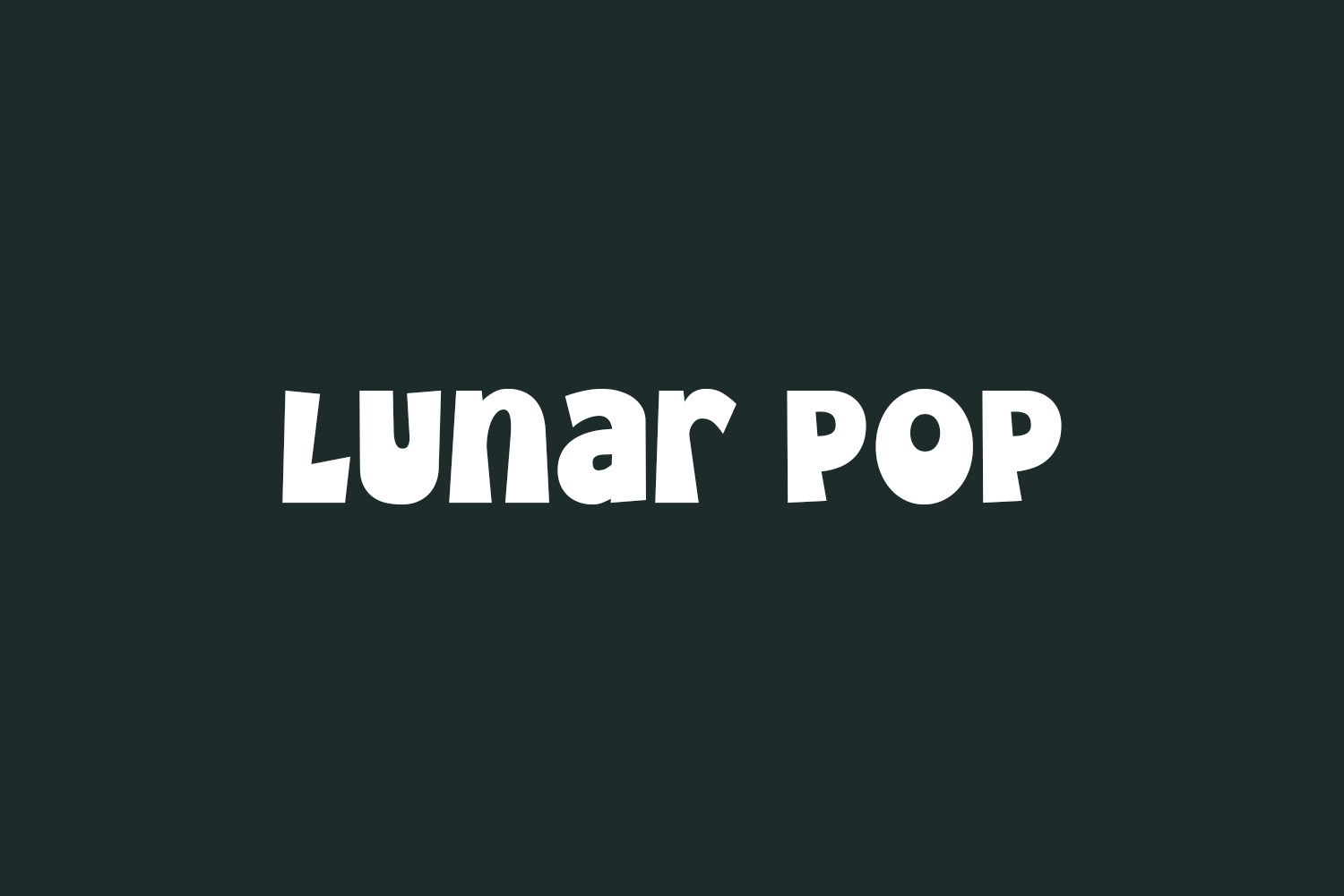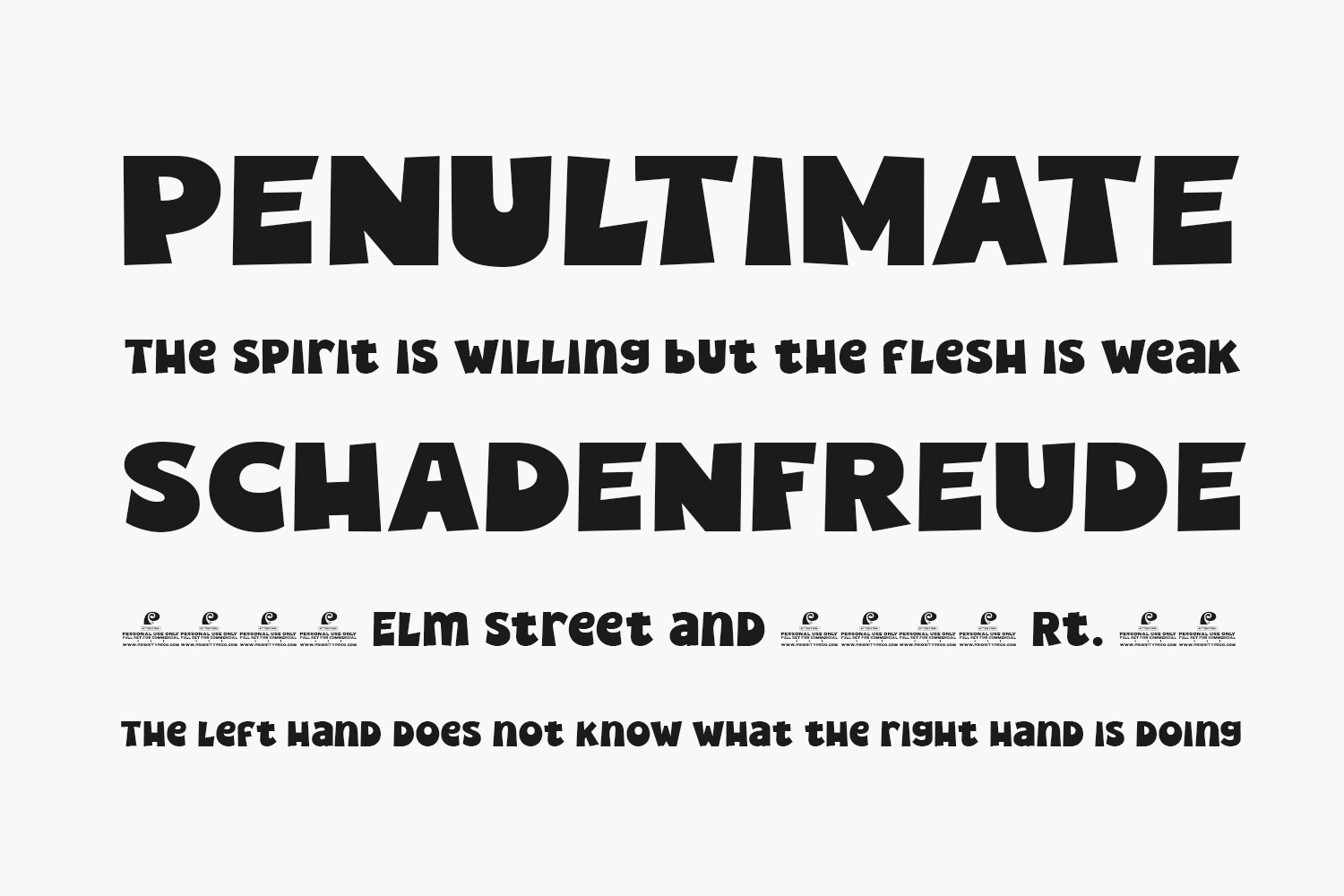
Lunar Pop Free Font exudes a sense of joy and playfulness through its vibrant display style. With a touch of whimsy and a dash of uniqueness, this font is poised to infuse your designs with radiance. Embrace its inclusion in your projects, and be prepared to delight in the wonderful outcomes it brings forth. Lunar Pop Free Font is a demo and free for personal use only. Please purchase the full version for commercial use.